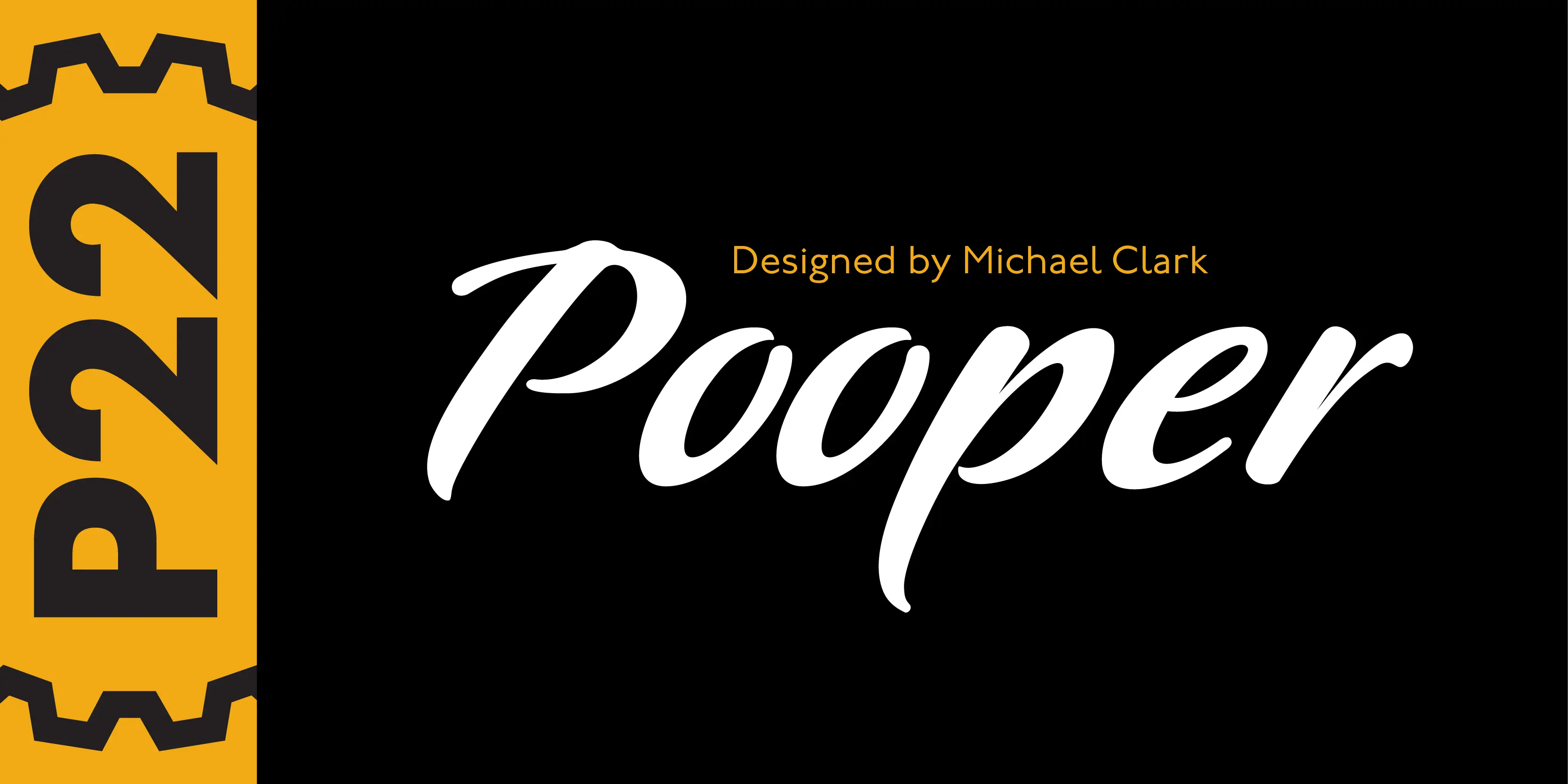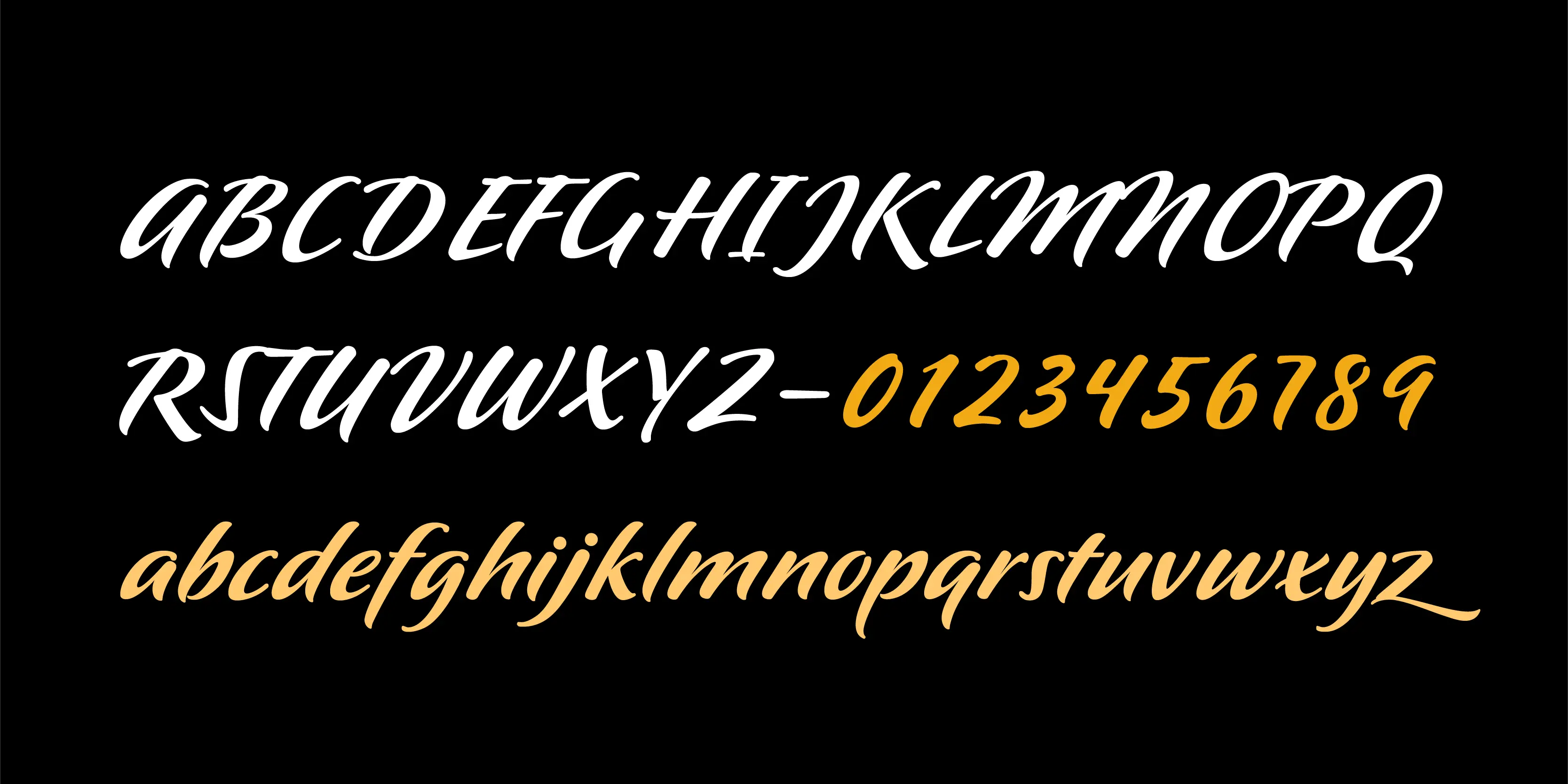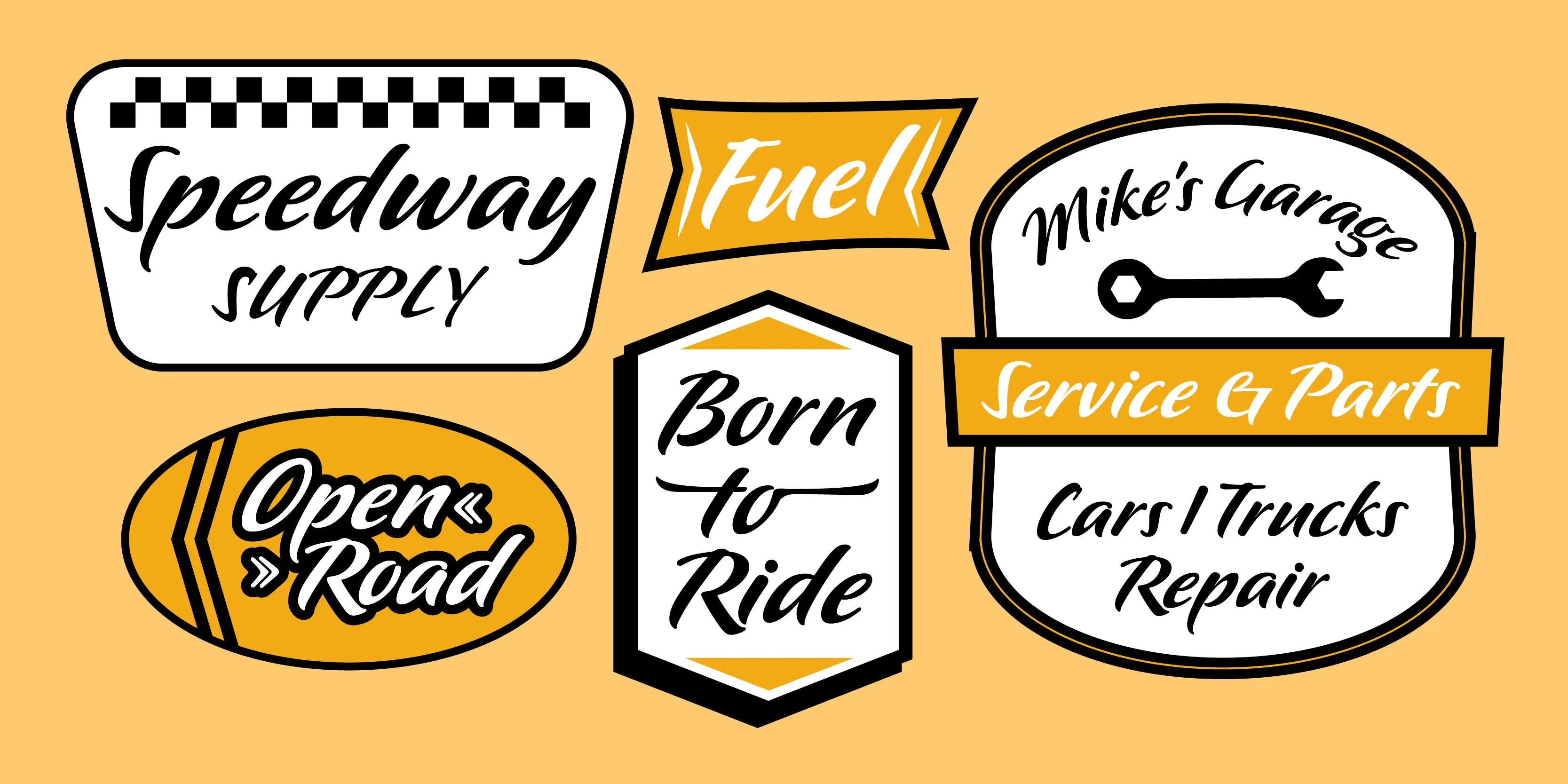
Pooper Black
Pooper Black is based on a brush ethic and has an extreme axis that lends a certain amount of speed to the font while the lack of connectors slows it down. The pro version expands on the original and popular Pooper Black with the addition of full Central and Eastern European character sets and plenty of alternate characters for those who have applications that support OpenType features. Almost all of the lower case characters now include an in stroke and out stroke version for greater design flexibility. A wonderful face for packaging, titling, and short bursts of text.
- Common Ligatures
- Discretionary Ligatures
- Stylistic Sets